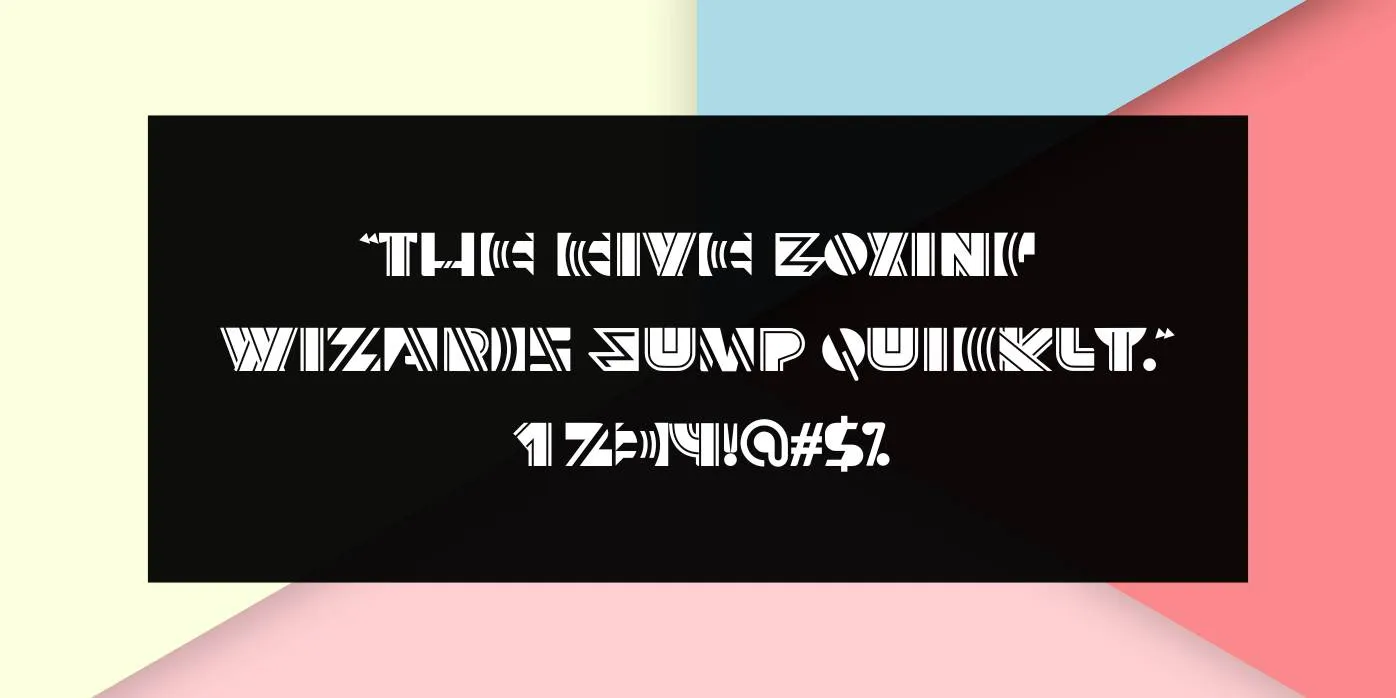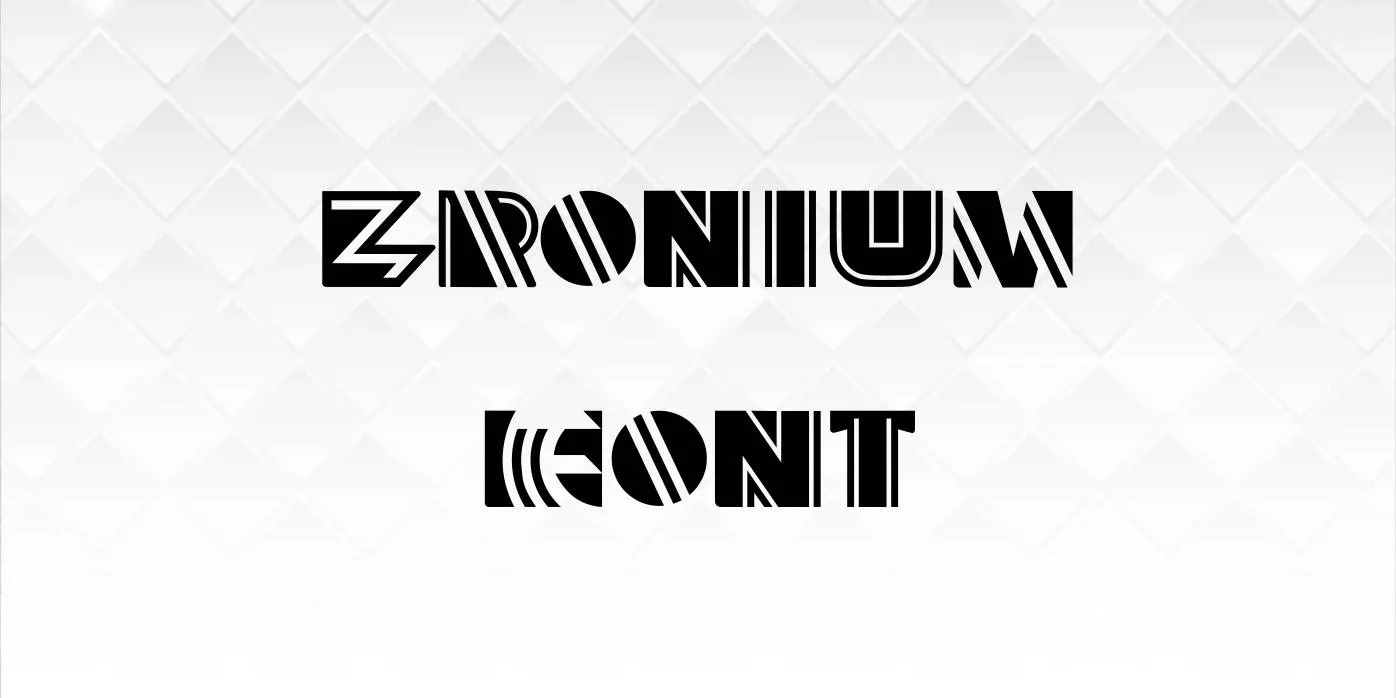
Bronium Font
Bronium Font is a decorative typeface that was designed by Xerographer Fonts. This typeface is available on this website for free in OTF and TTF font formats. The drawback of this font is that it has very bold characters that decrease the readability of the texture. If you want to get this typeface, just scroll down and download this typeface.